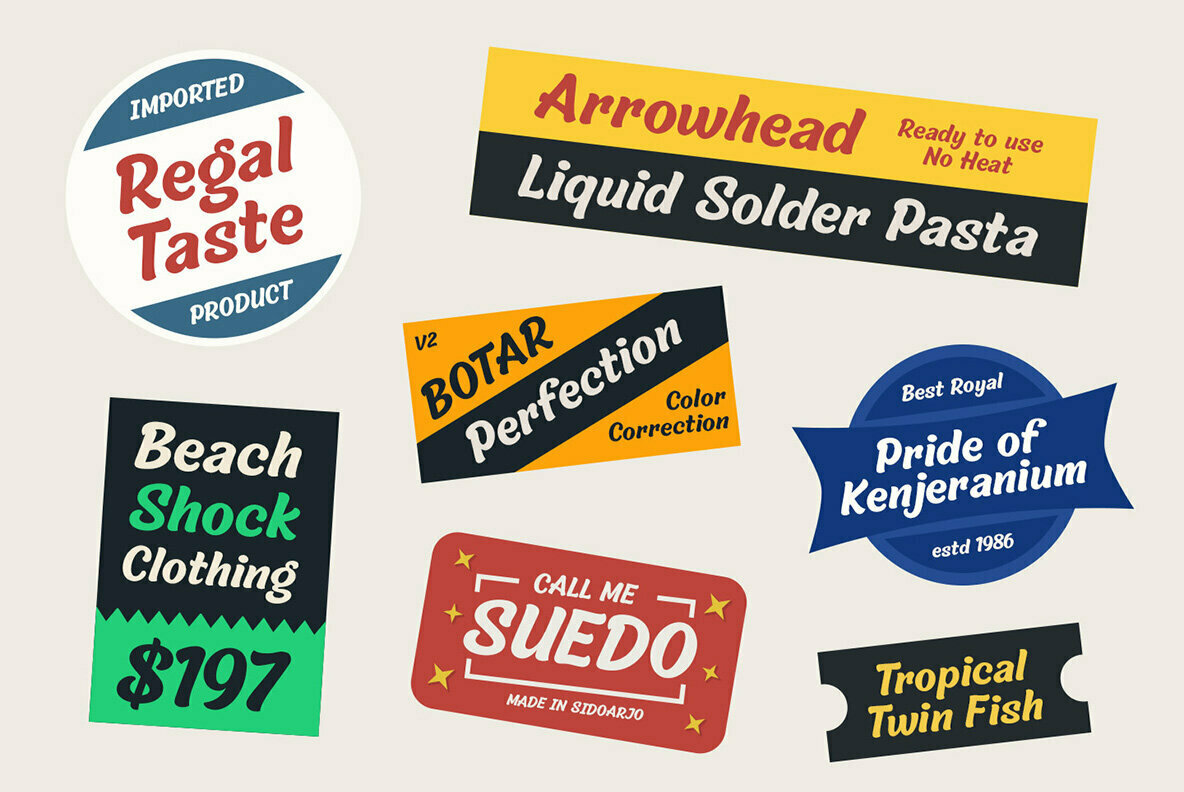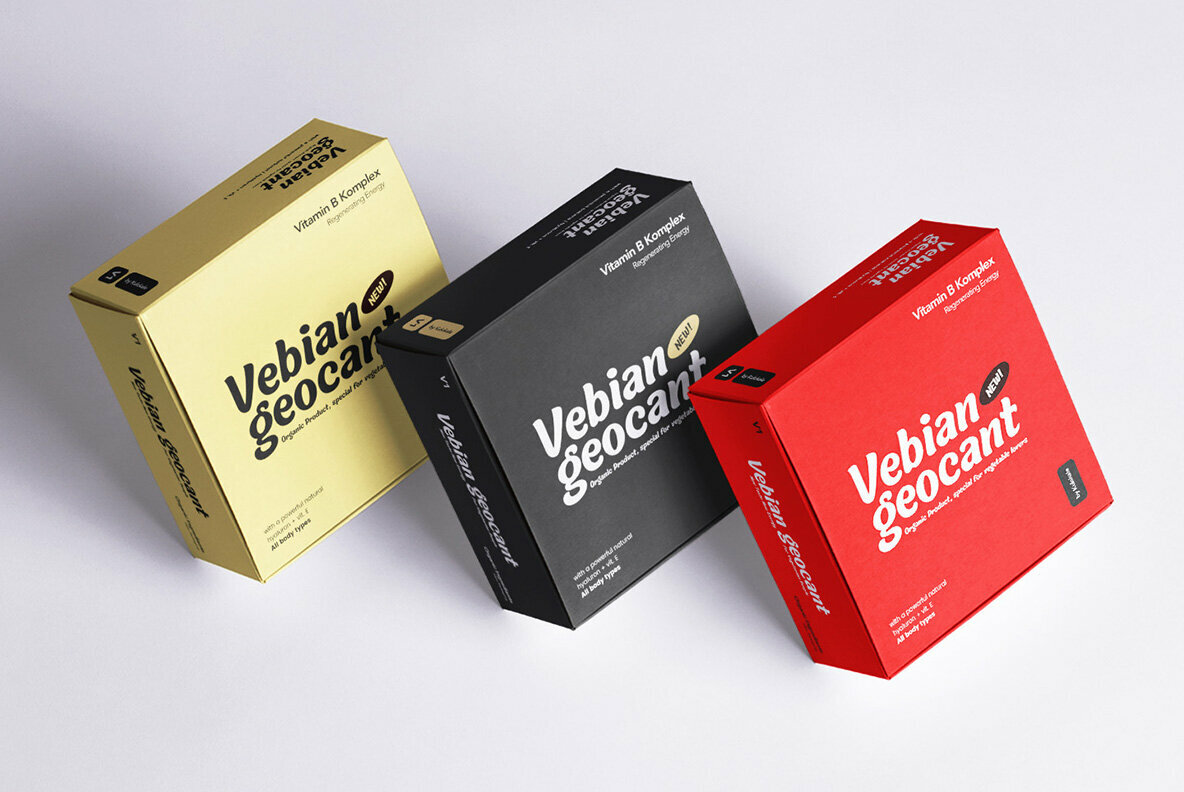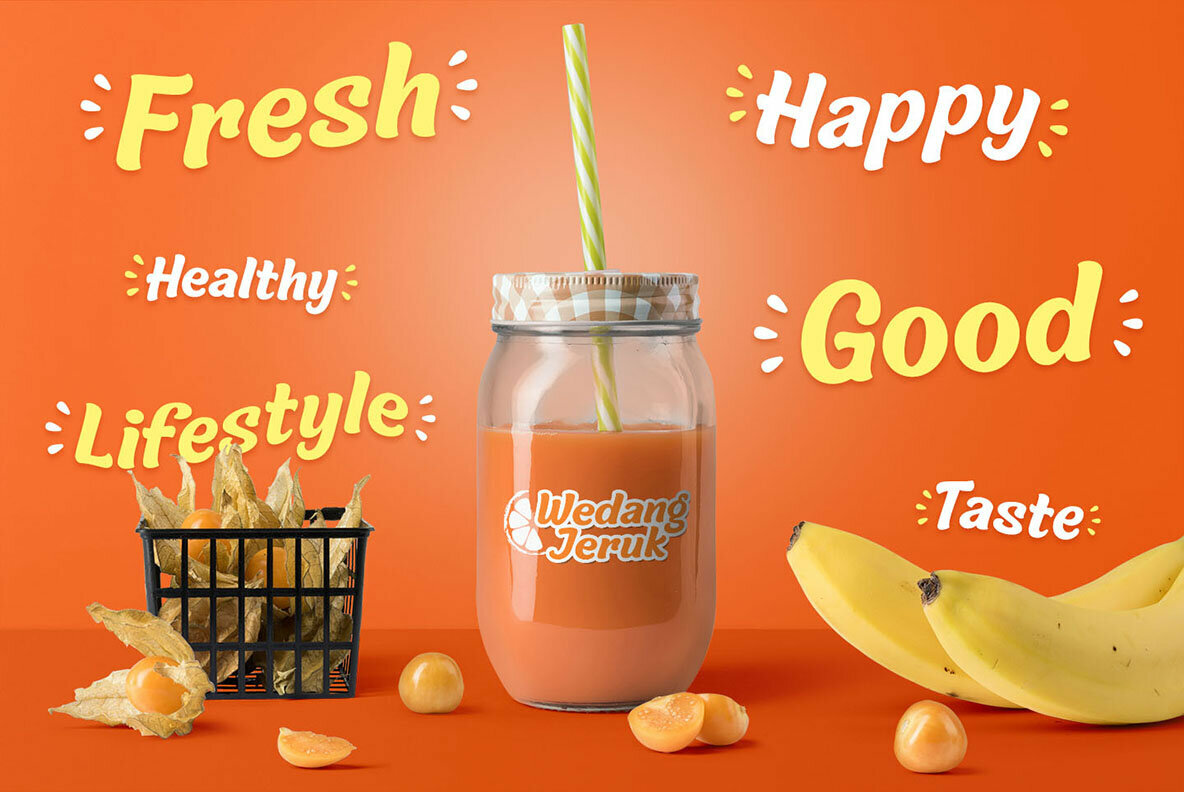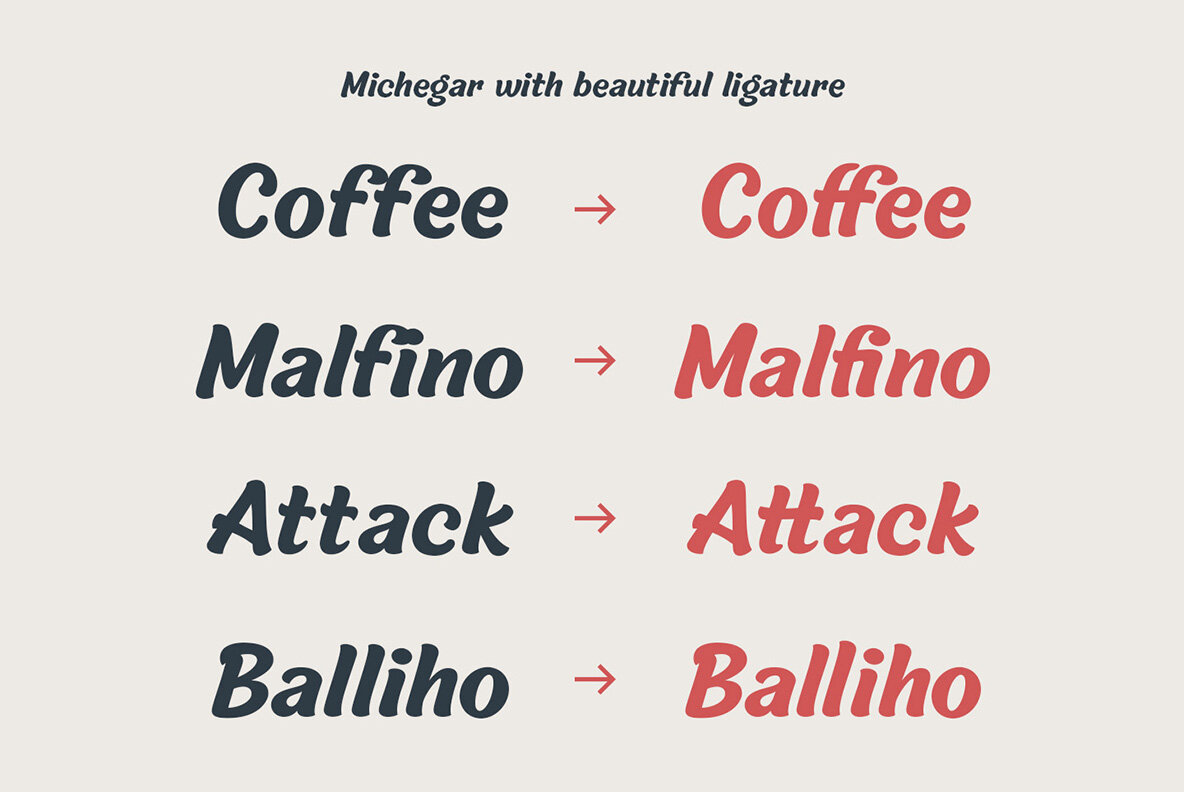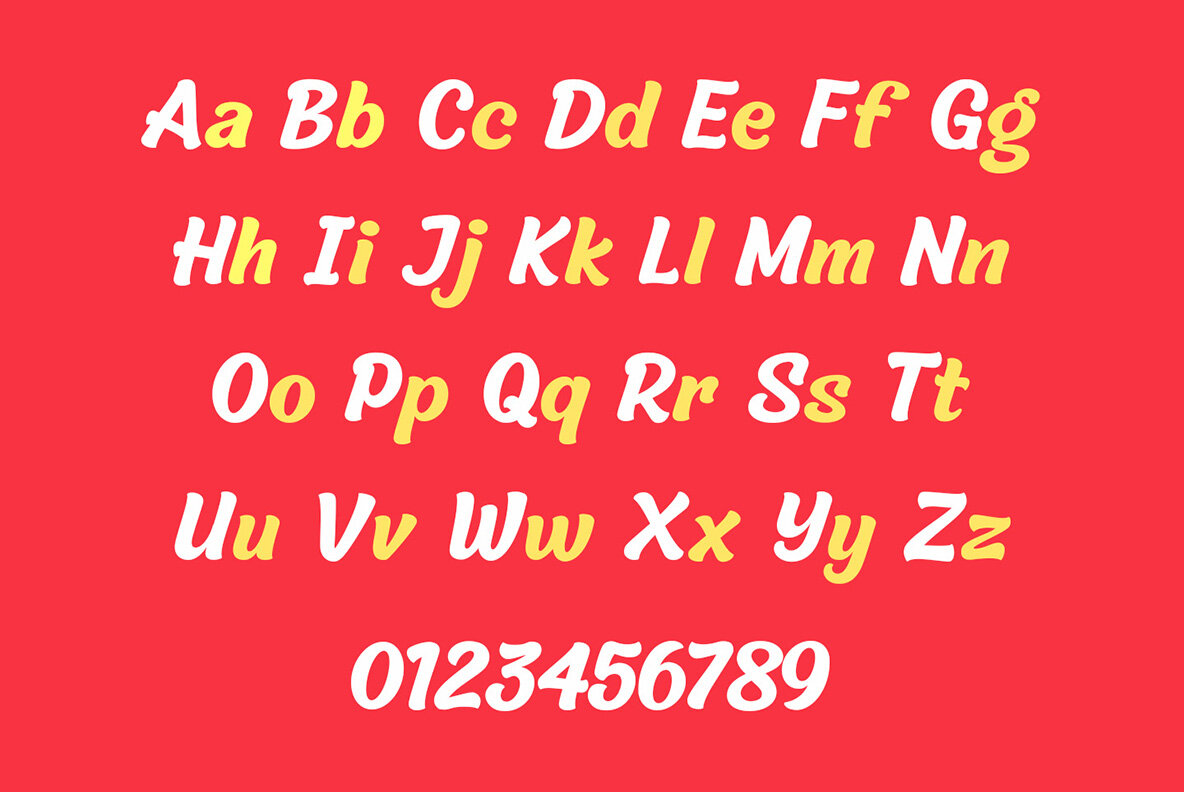
Michegar Font
Michegar
Michegar is a modern and casual sans serif font. Michegar is well-suited for advertising, branding, logotypes, packaging, titles, headlines and editorial design. This font is encoded with Unicode PUA, which allows full access to all additional characters without having special design software. Mac users can use Font Book, and Windows users can use Character Map to view and copy one of the extra characters to paste into your favorite text editor / application.